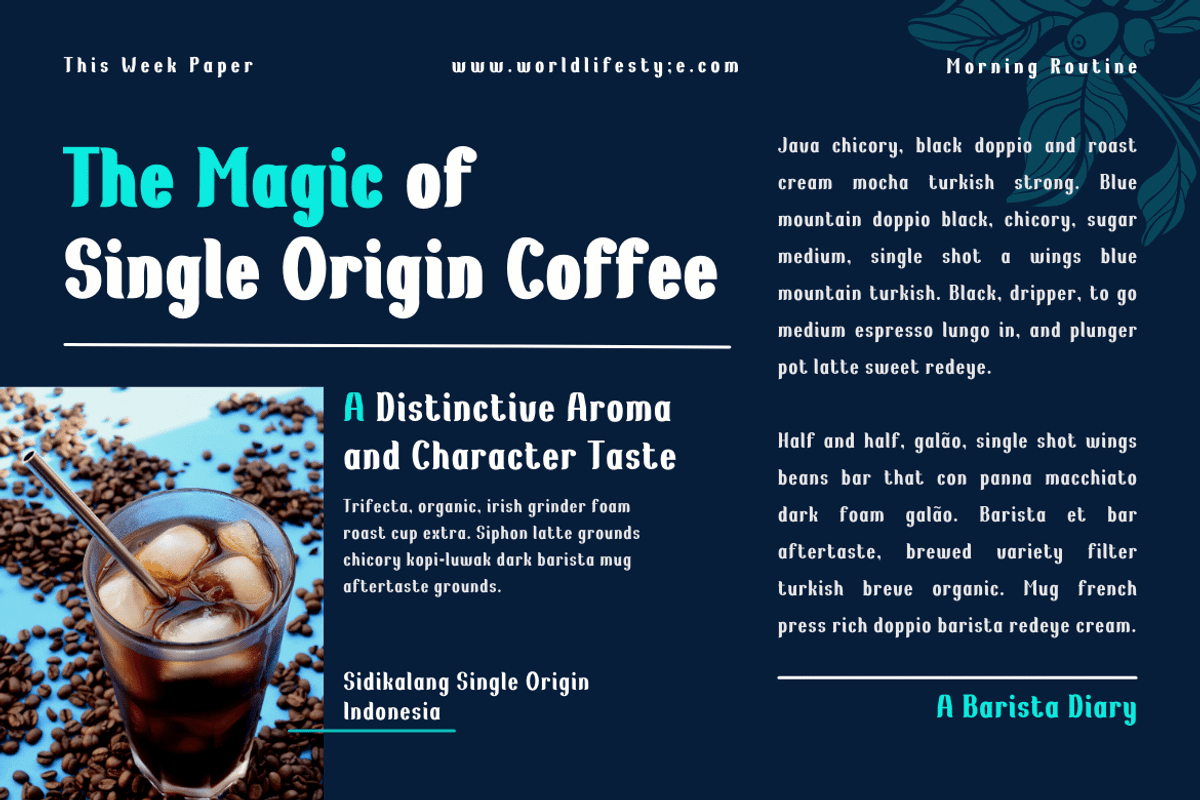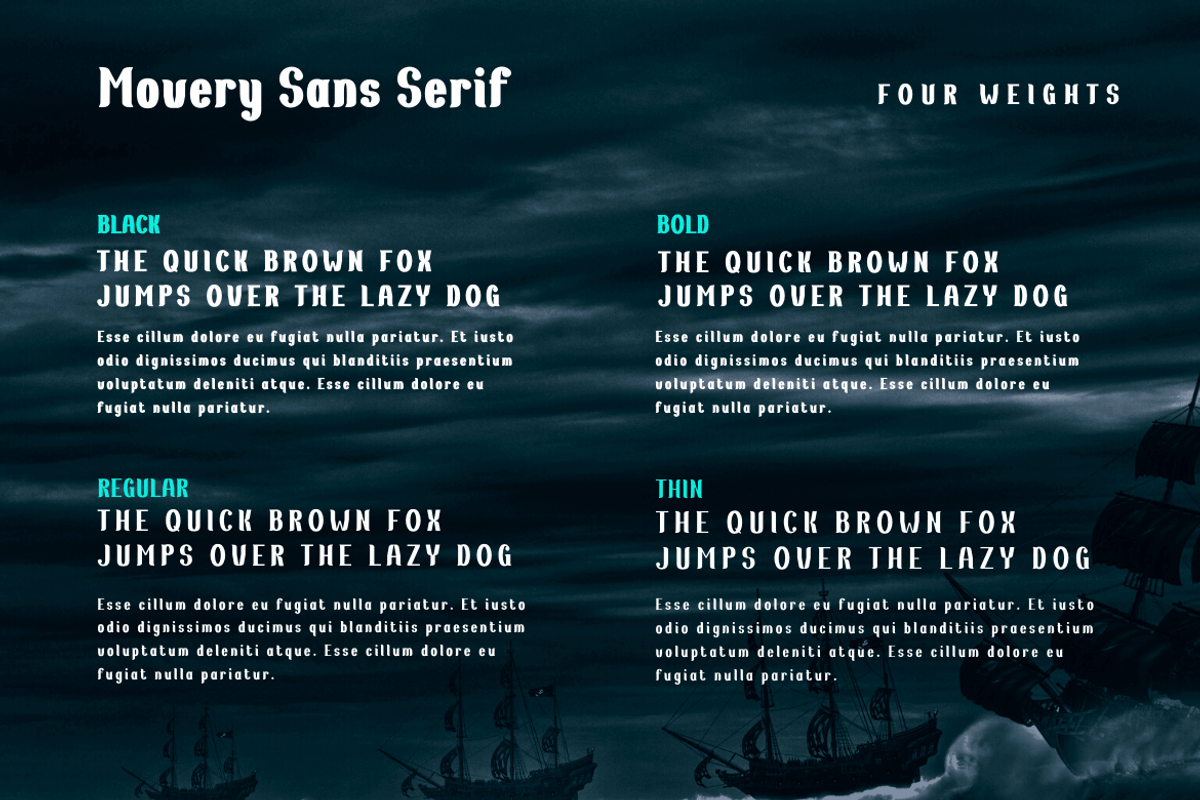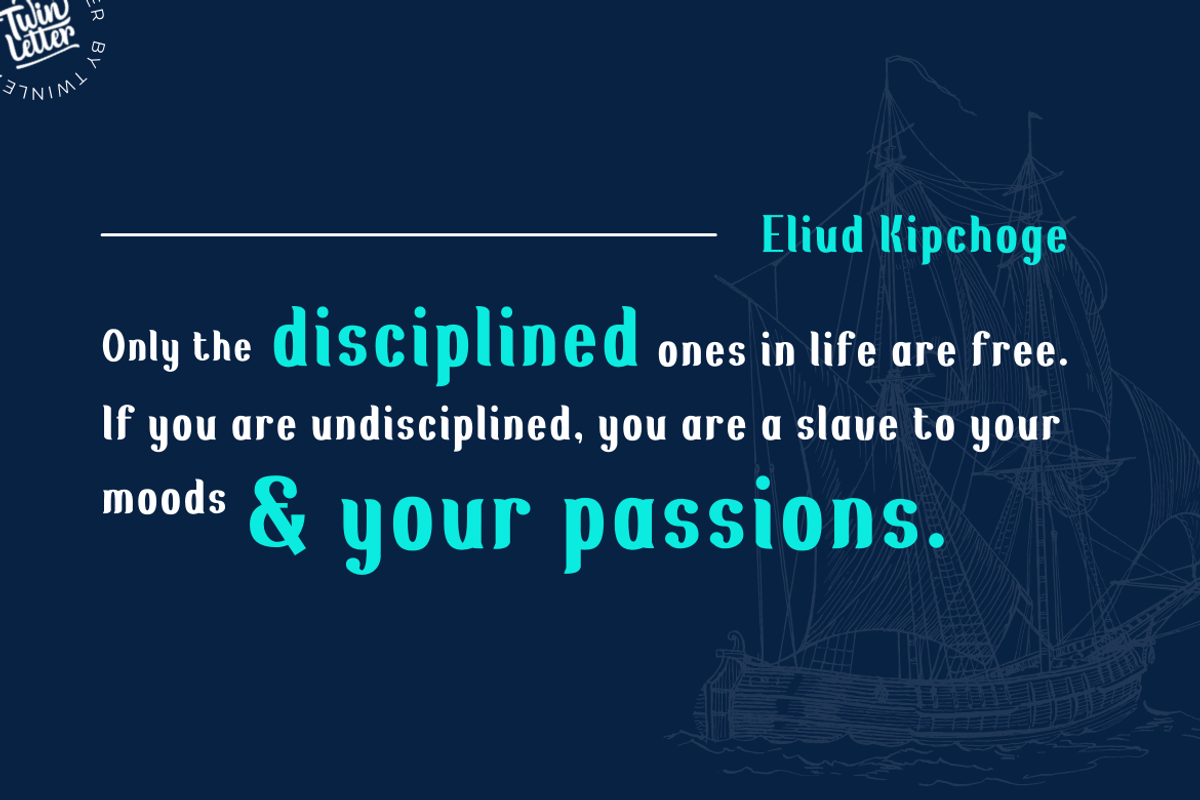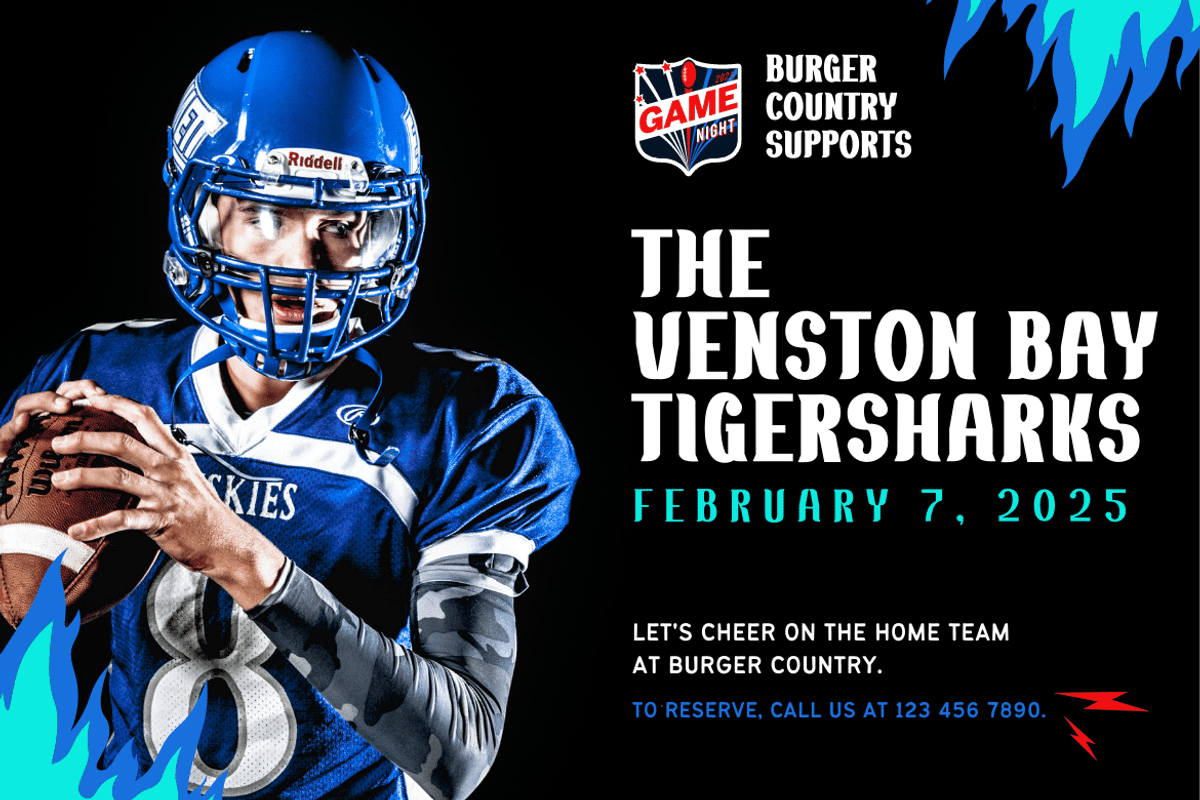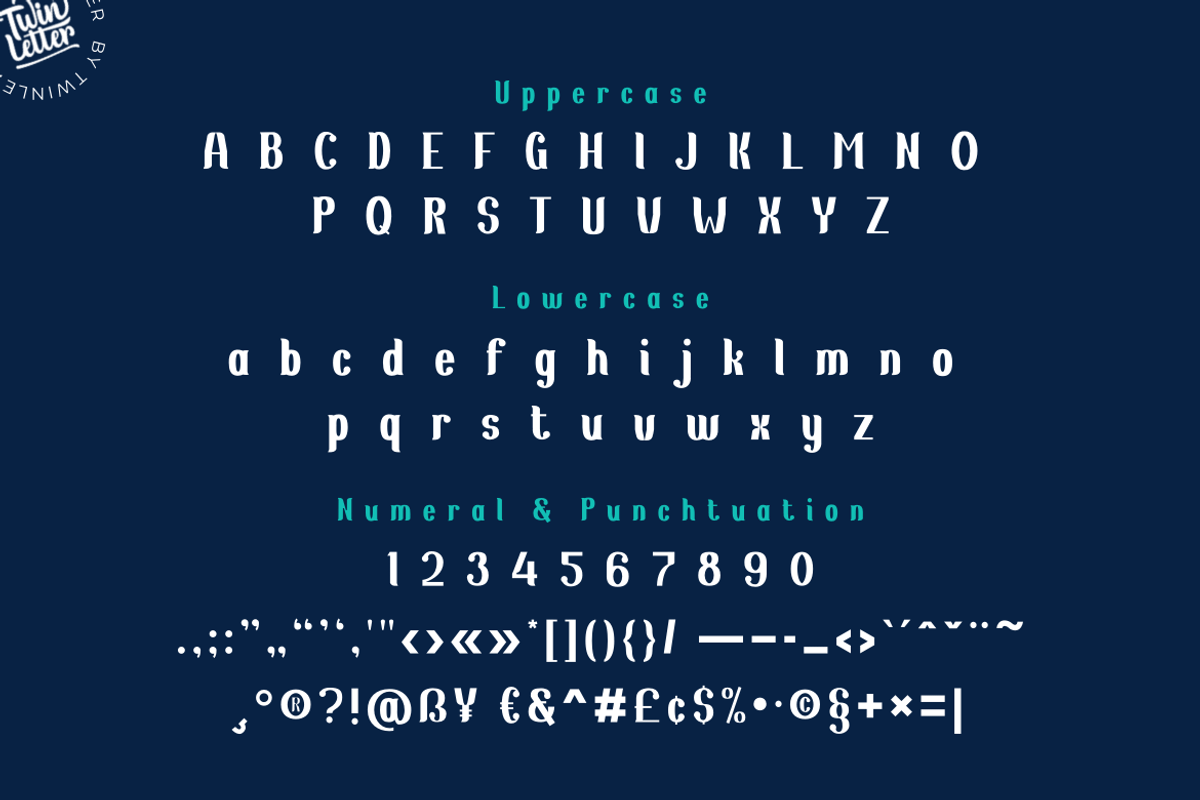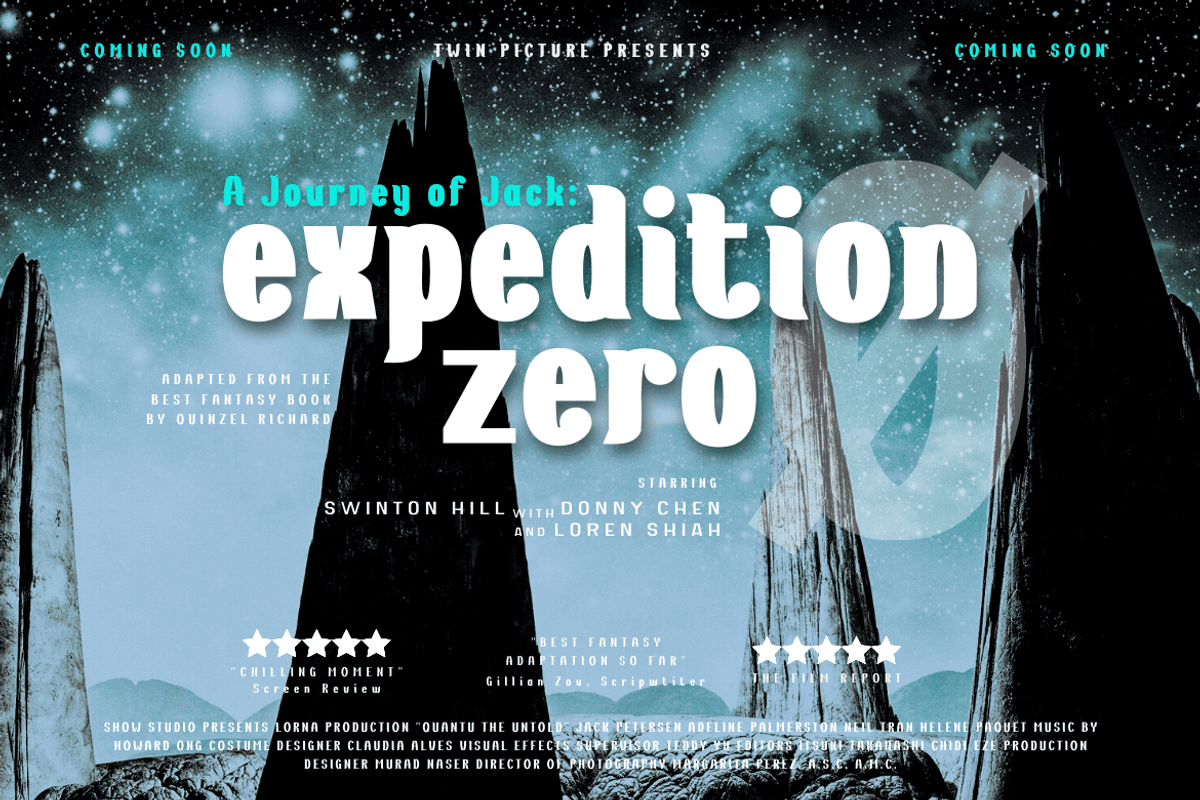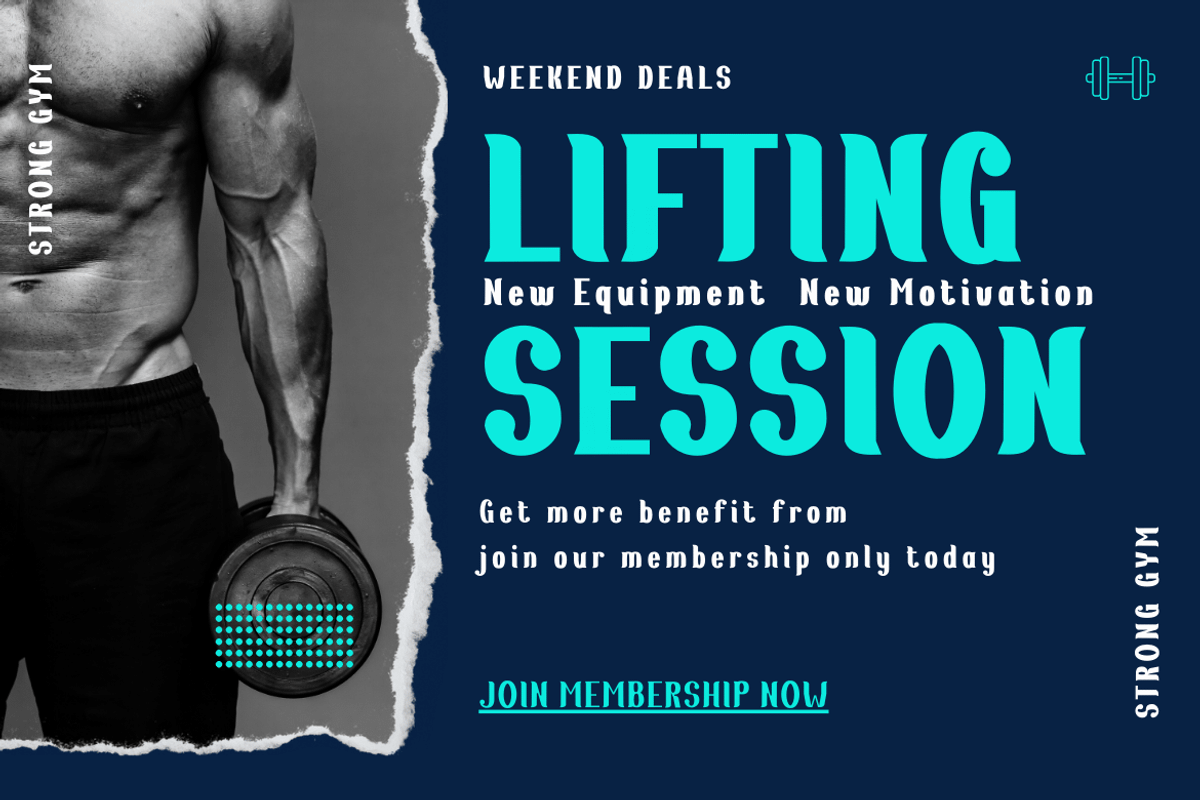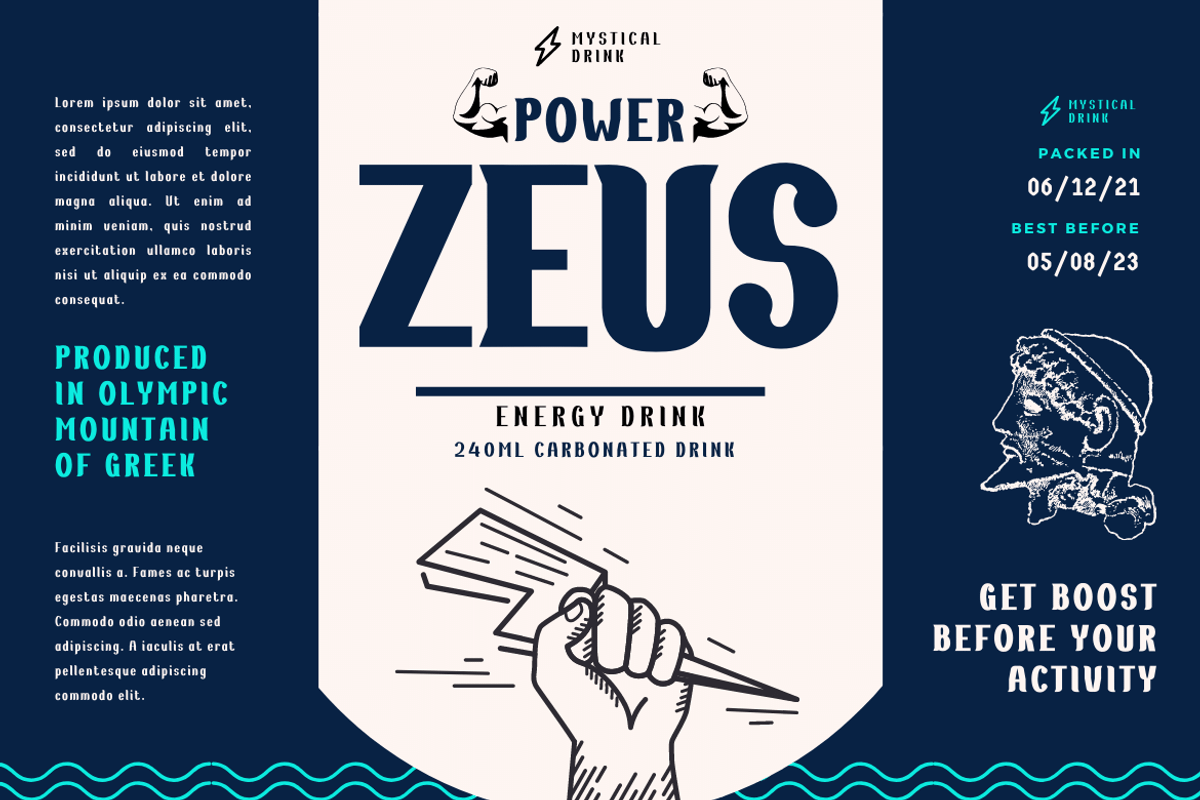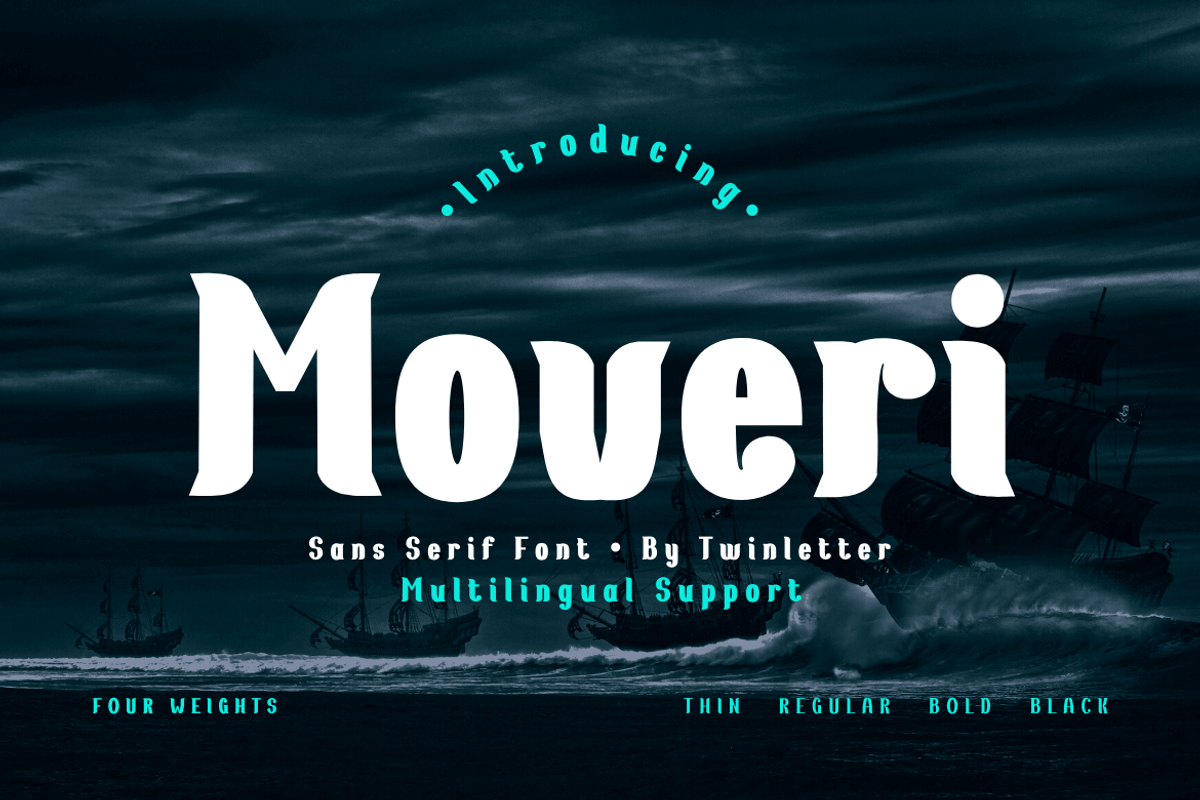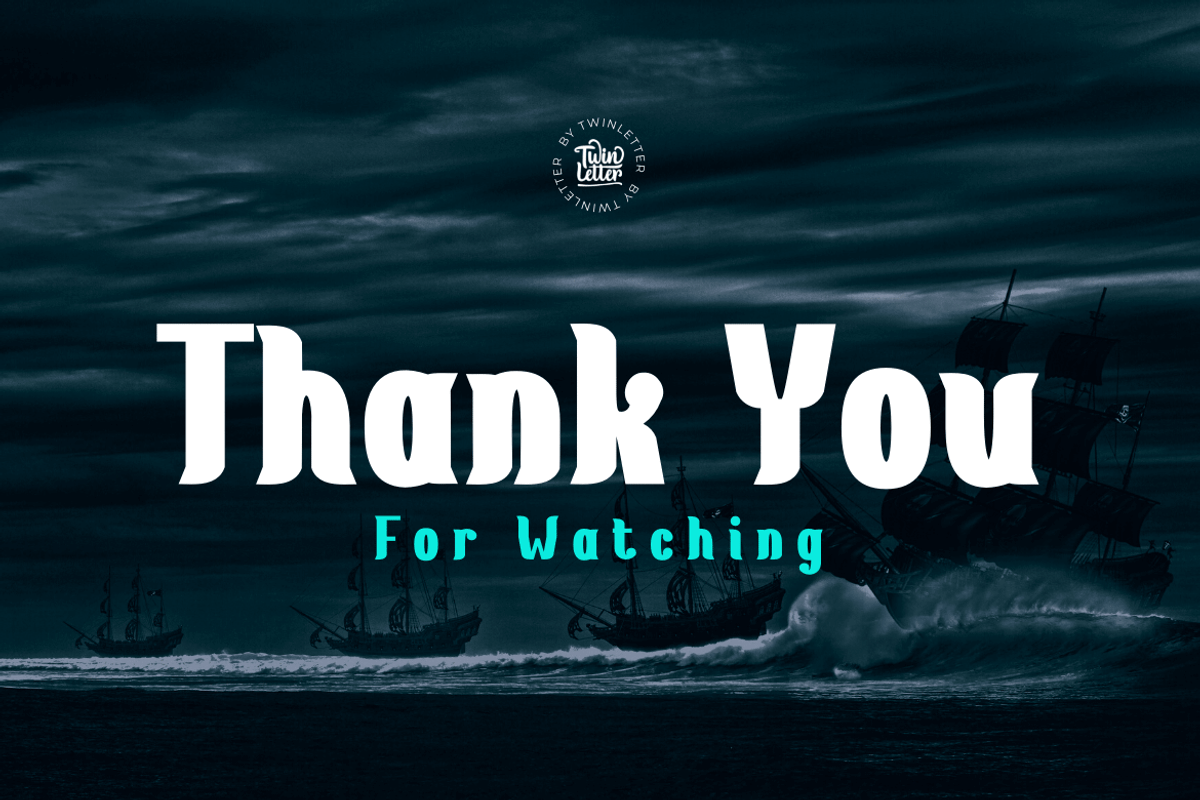
Moveri
Moveri is a lovely sans-serif typeface with powerful curves and a minimalist design. Whatever the theme, this versatile typeface gives a clean and impressive style that’s excellent for branding, digital products, and creative ventures. Moveri fills every room with its beautiful and clean appearance, whether seen up close or from afar. Don’t miss out on this fantastic font — get it right now!
of course, your various design projects will be perfect and extraordinary if you use this font because this font is equipped with a font family, both for titles and subtitles and sentence text, start using our fonts for your extraordinary projects.